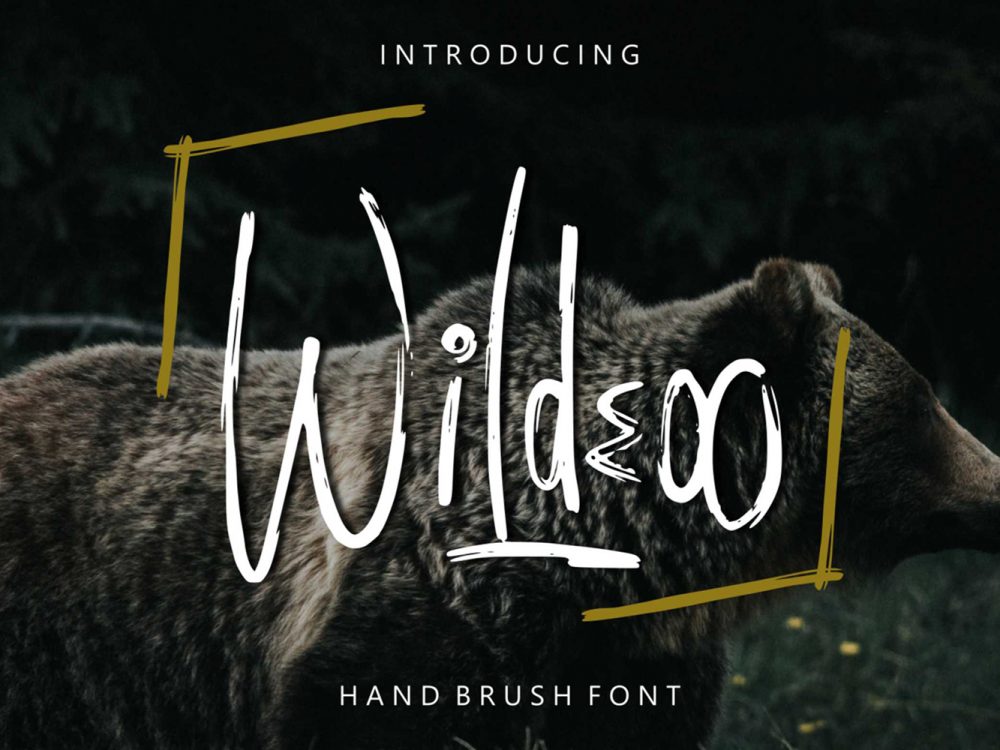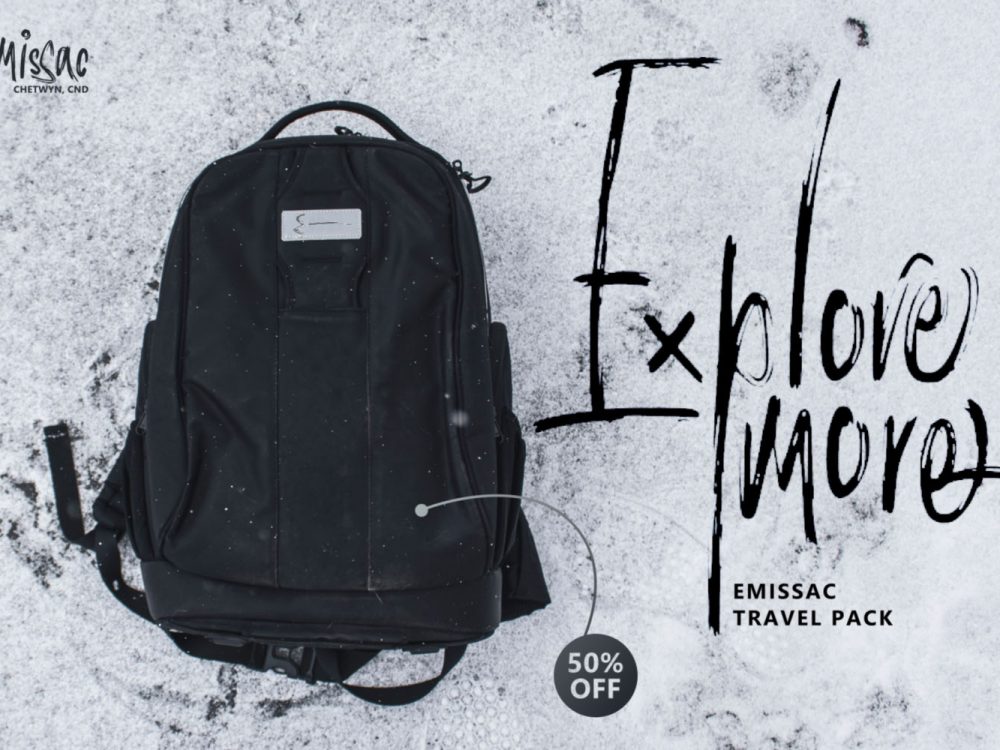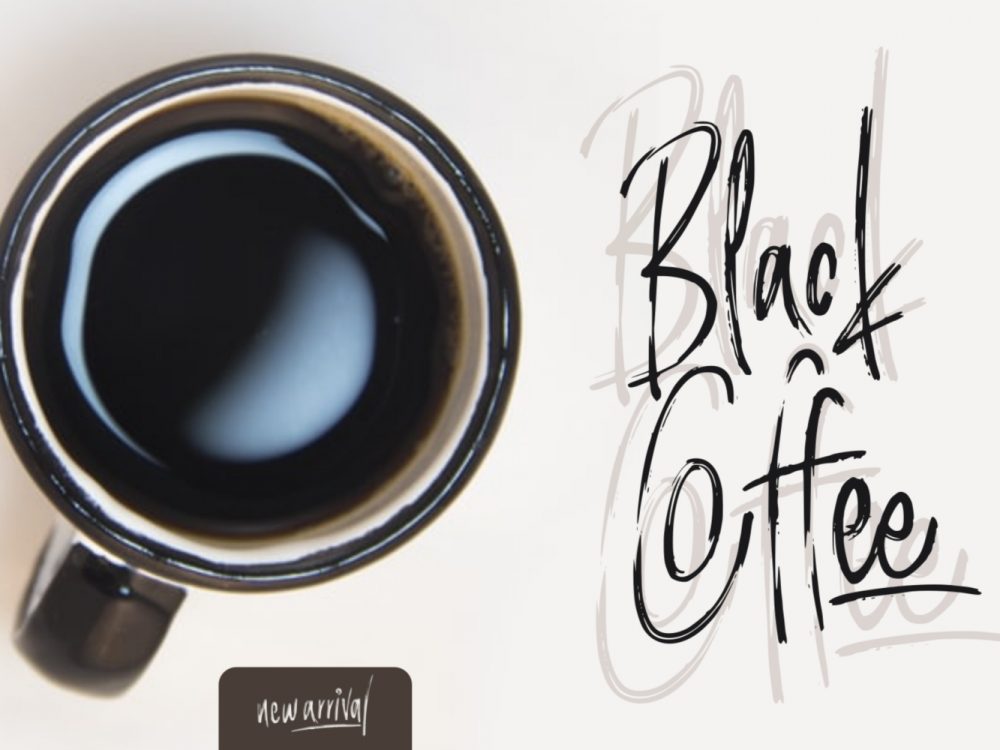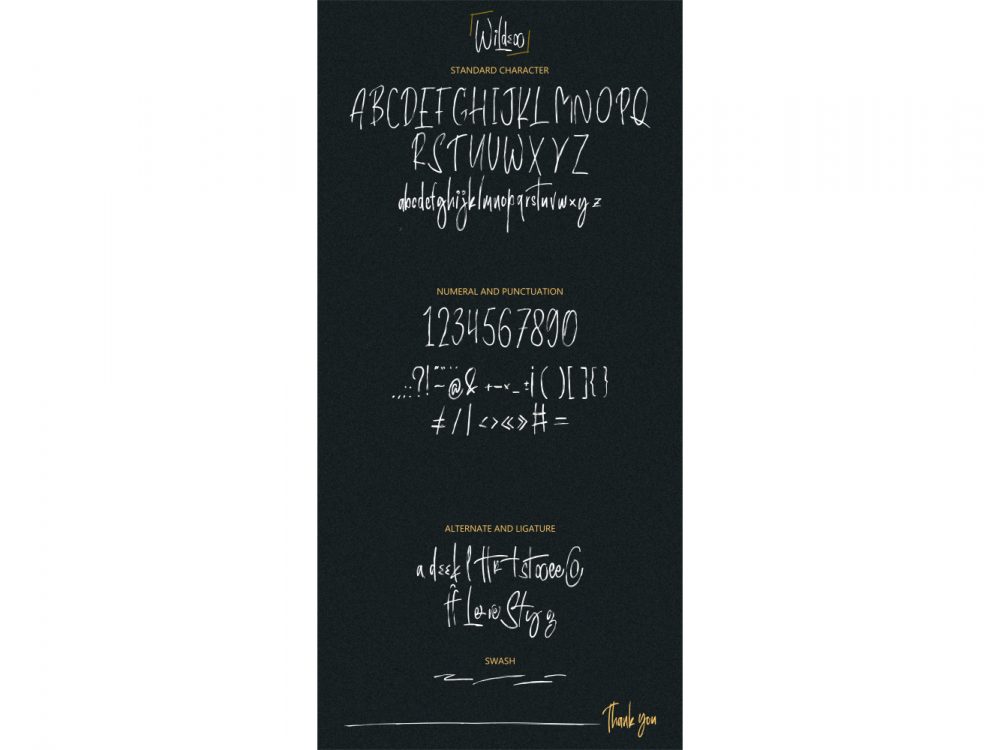
Wildeoo Free Font
Wildeoo Free Font is an interesting script typeface that was inspired by classic posters. This font simulates writing with a brush and will help you create various design projects in a modern style. You can use this font to create memorable posters, wedding invitations, cards, branding, flyers, and more. Improve the quality and increase the popularity of your design projects using this font. If you like it don’t forget to check out the full version.